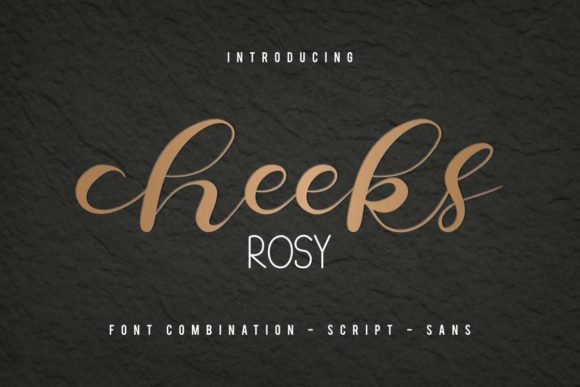
Discover the Magic of Cheeks Rosy Font
Have you ever found yourself lost in the world of typography, searching for the perfect font to bring your design to life? We’ve all been there, pouring over font libraries and scribbling notes in our sketchbooks, desperate to find that elusive combination of style and elegance. For designers, the quest for the perfect font is a never-ending journey, but what if we told you that we’ve found a gem that’s sure to make your designs stand out?
Meet Cheeks Rosy Font, a magical script font that’s been carefully crafted to evoke a sense of timeless elegance and authenticity. With its classic style and friendly feel, this font is the perfect addition to any designer’s toolkit. Whether you’re working on a wedding invitation, a brand identity, or a marketing campaign, Cheeks Rosy Font is sure to add a touch of sophistication and whimsy to your designs.
Cheeks Rosy Font Key Features
- Unique Characteristics: Cheeks Rosy Font features a playful, whimsical design with rosy cheeks-inspired illustrations, adding a touch of warmth and personality to any text-based project.
- Font Style: Script, handwritten, and brush-style font with various ligatures and swashes for added flair
Designer Review: Cheeks Rosy Font
I recently had the chance to work with the Cheeks Rosy Font and overall, it’s a lovely addition to any design project. Here are my thoughts:
- ✨ Beautiful, soft brush strokes that give a handmade feel
- ✨ Elegant, feminine design perfect for beauty, wellness, or lifestyle brands
- ✨ Excellent legibility, even at smaller font sizes
- ⚠️ Limited character set, may not be suitable for projects requiring a wide range of special characters
- ⚠️ May not be the best choice for highly technical or corporate brands
- ⚠️ Some users may find the font too ornate or distracting
The Cheeks Rosy Font is a charming and elegant font that can add a touch of whimsy to your designs. While it may not be the best choice for every project, it’s perfect for brands looking to convey a sense of softness and femininity. With its beautiful brush strokes and excellent legibility, it’s definitely worth considering for your next design project.
The Cheeks Rosy Font is ideal for creating playful, whimsical designs, such as greeting cards, invitations, and children’s book illustrations. To get the most out of this font, experiment with different font sizes, colors, and styles to create a unique look. You can also pair it with other playful fonts to create a fun and eye-catching design.
Alternative Font Options for “Cheeks Rosy Font”
Great Vibes Font is a beautiful, handwritten script font perfect for creating a whimsical and romantic atmosphere. It’s ideal for use in wedding invitations, greeting cards, and other design projects that require a touch of elegance and sophistication. Great Vibes Font has a softer, more delicate feel compared to Cheeks Rosy Font, which is bolder and more playful.
Alex Brush Font is a modern, elegant script font that works well in a variety of design contexts, from branding and advertising to digital products and print materials. It’s a great choice for designers who want a font that’s both sophisticated and approachable. Compared to Cheeks Rosy Font, Alex Brush Font has a more refined and polished look, making it suitable for corporate and business applications.
Carolyna Pro Font is a modern, cursive script font with a unique, artistic feel. It’s perfect for designers who want to add a touch of personality and flair to their designs. Carolyna Pro Font is more elegant and refined than Cheeks Rosy Font, making it suitable for high-end branding and marketing materials.
Q: What is the recommended font size for using Cheeks Rosy Font?
The recommended font size for Cheeks Rosy Font is between 18pt and 48pt, depending on the design context and intended use. This will ensure optimal legibility and visual impact. You can adjust the font size to suit your specific design needs, but be mindful of the font’s elegance and sophistication, which may be compromised at very small or very large sizes.